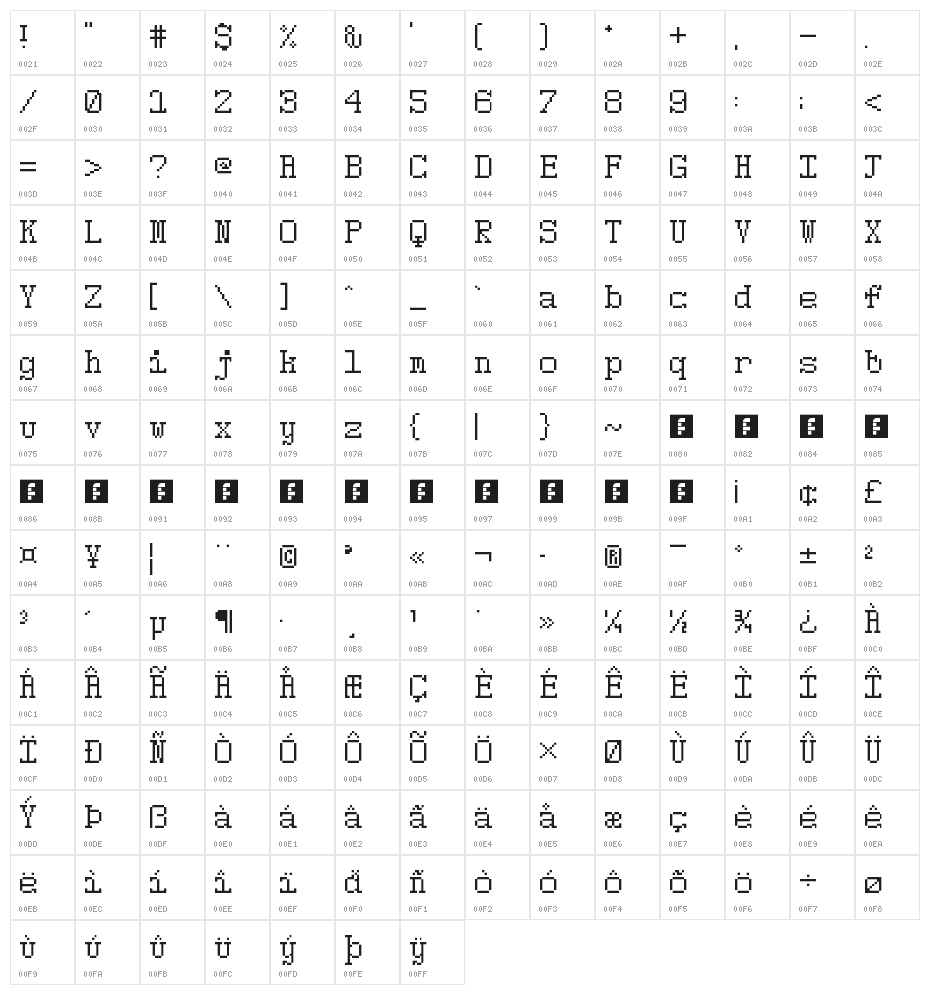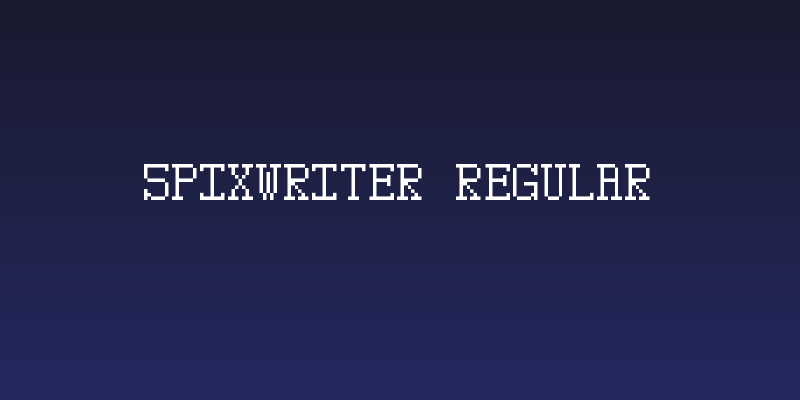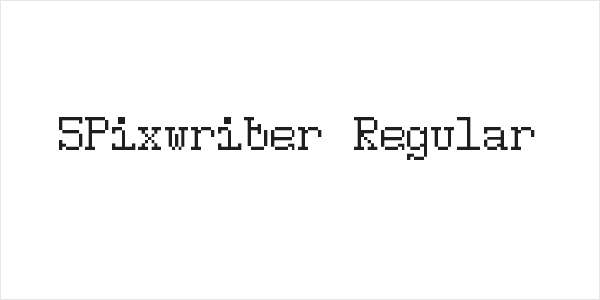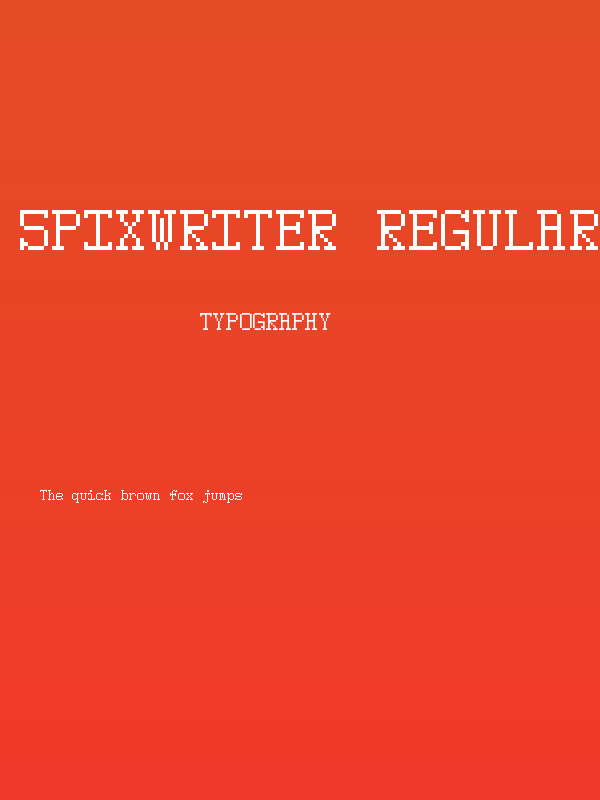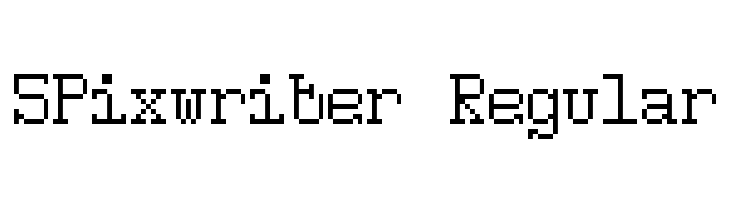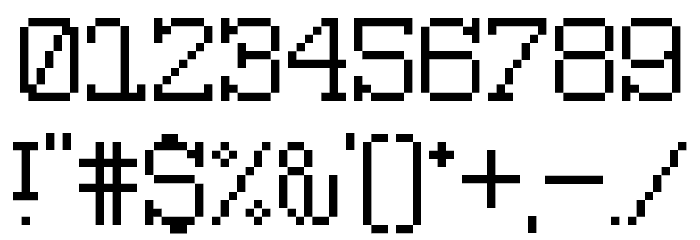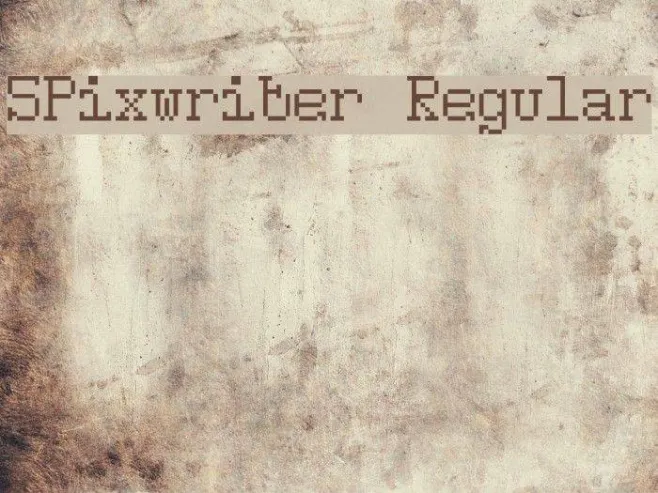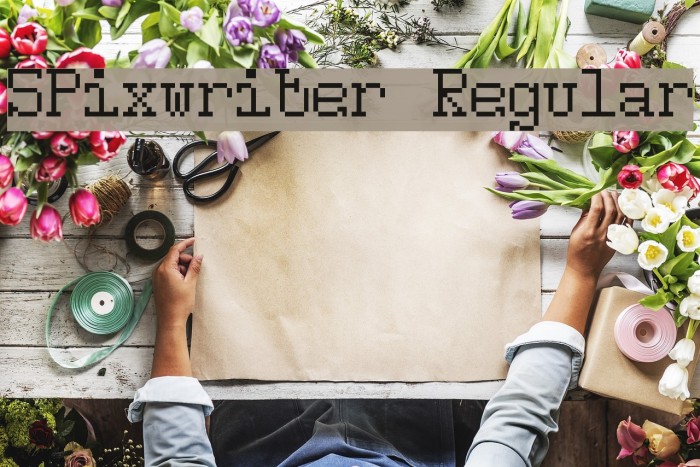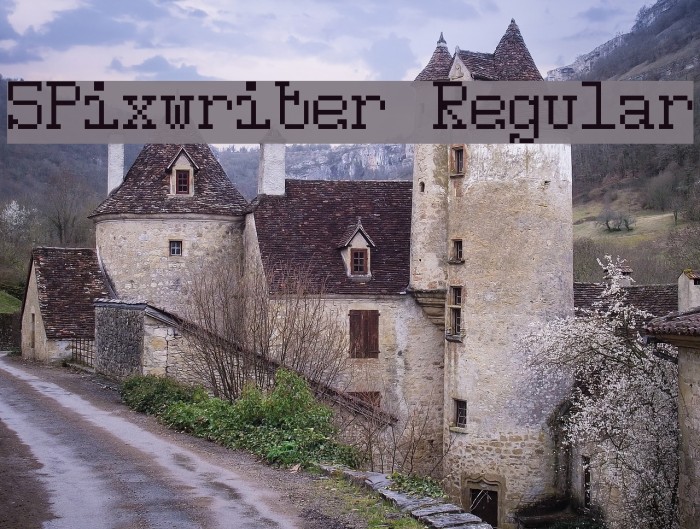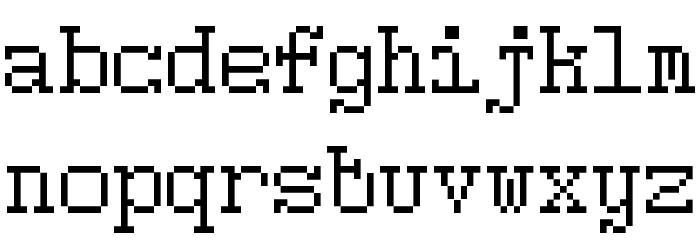
5Pixwriter Regular Font
5Pixwriter Regular Description
This font features a pixelated, monospaced design reminiscent of early computer and video game graphics. Each character is constructed with a grid-like structure, giving it a distinctly digital and retro appearance. The uniformity in character width and height contributes to its mechanical and precise aesthetic. The font maintains a consistent stroke weight throughout, with no variation in thickness, emphasizing its low contrast. The characters are well-defined, with clear separations and no overlapping, making it highly legible even at smaller sizes. This style is ideal for projects that aim to evoke nostalgia or a tech-inspired theme.
| Use Case | Logos, Headlines, Digital displays |
| Proposed Projects | Ideal for retro-themed designs, video game graphics, digital art, and tech-inspired branding. |